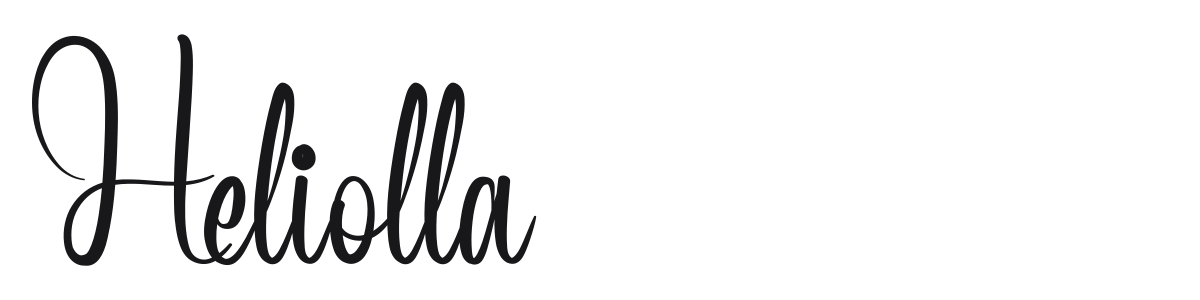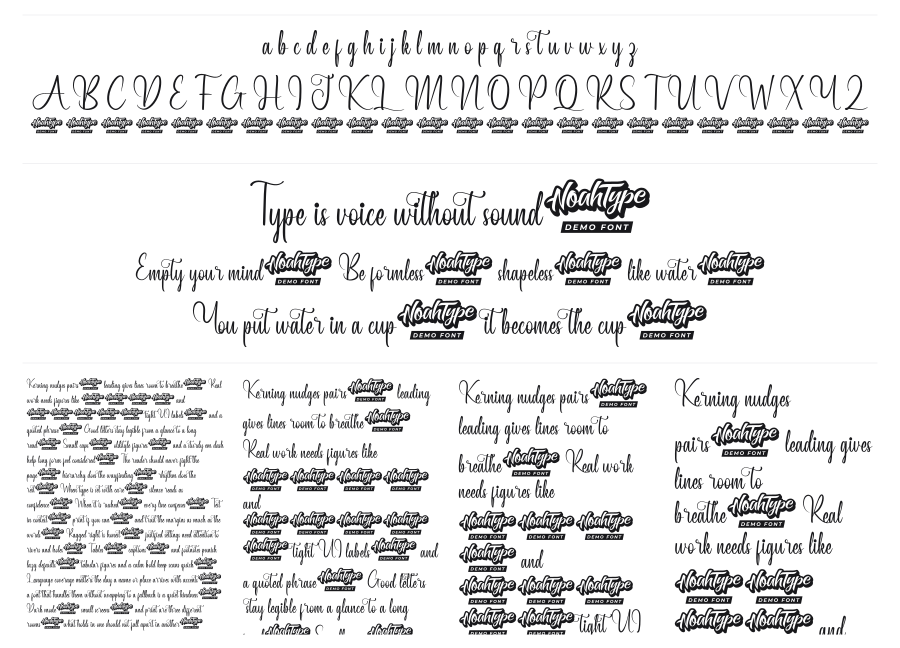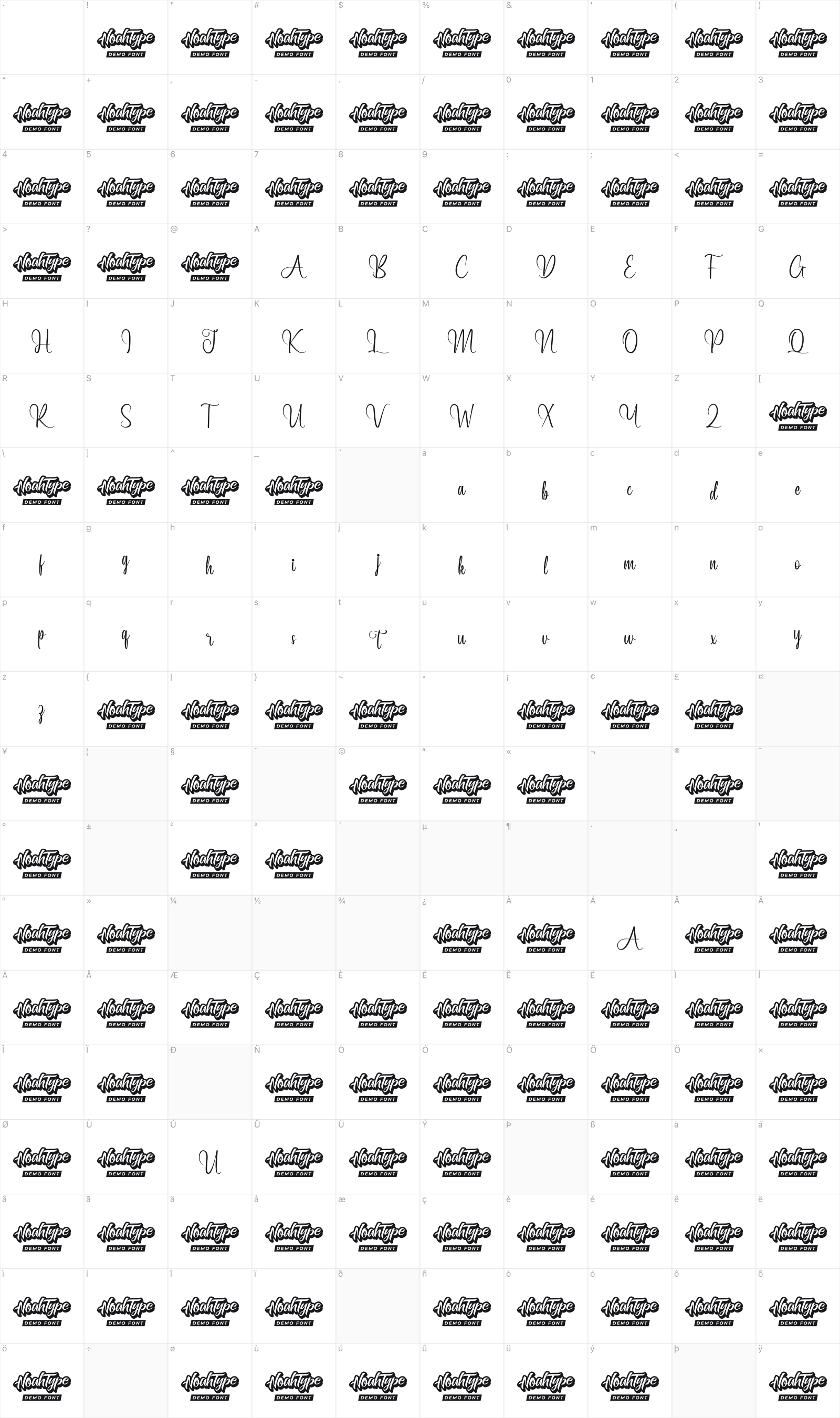
Heliolla
Heliolla is a flowing casual script with smooth connected strokes and a lively calligraphic rhythm. Generous loops and natural joins give it a handwritten warmth that reads as both polished and personal. It suits branding, packaging, and event design where a human touch is the point.